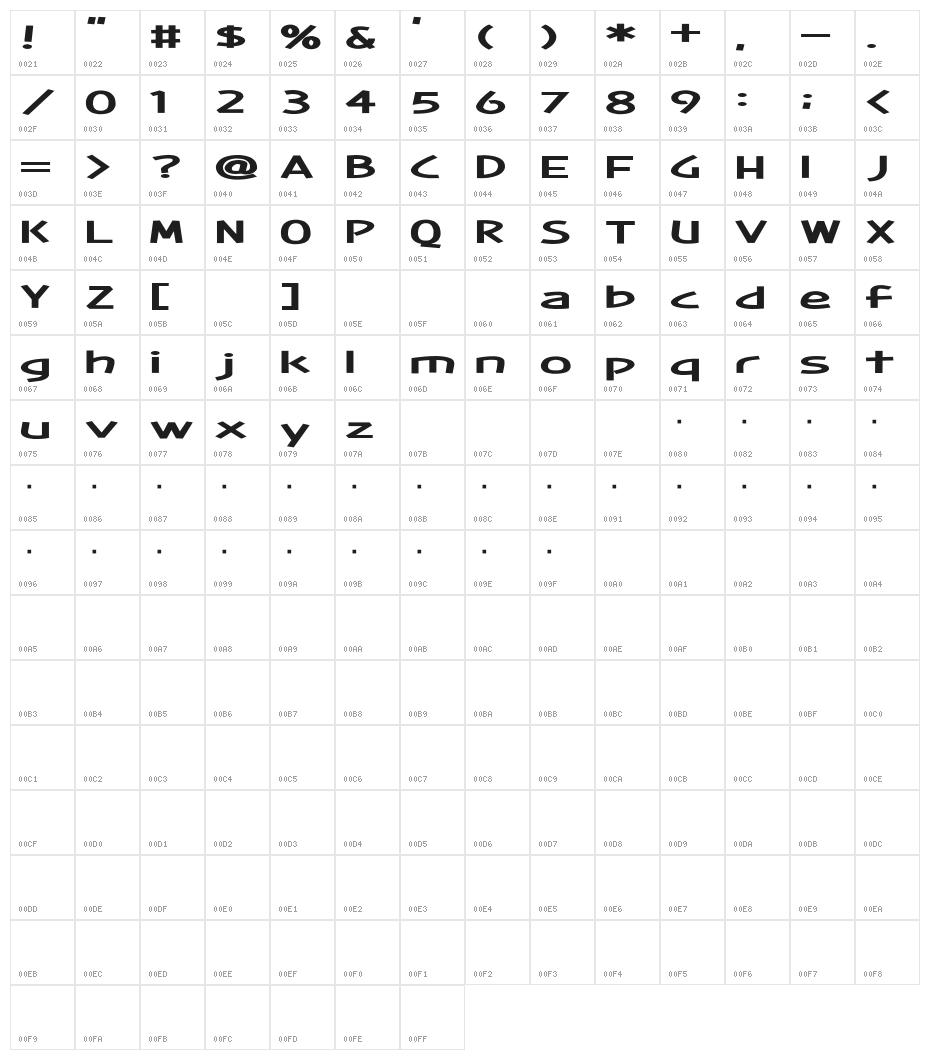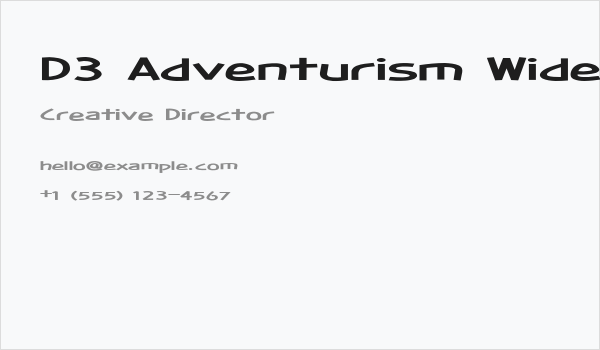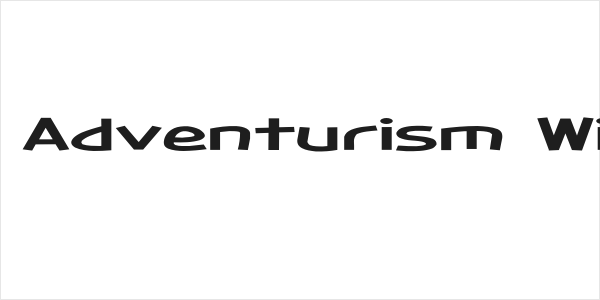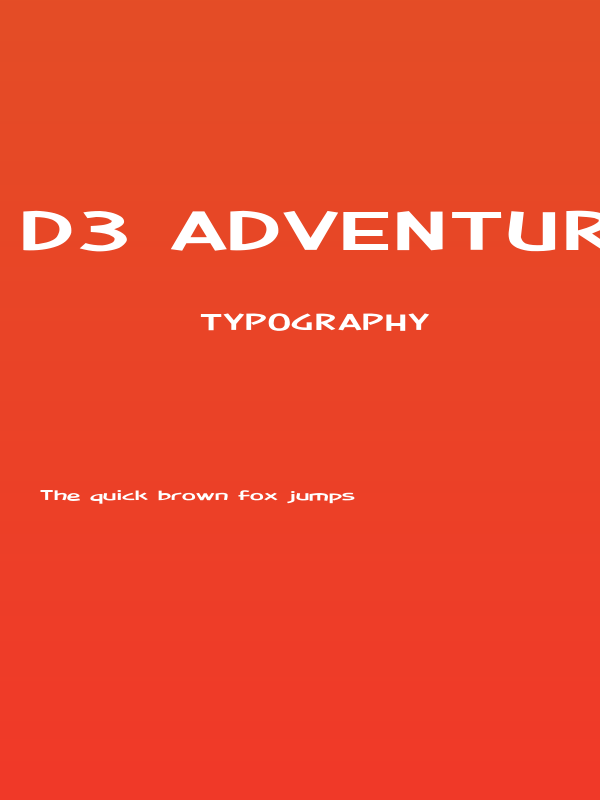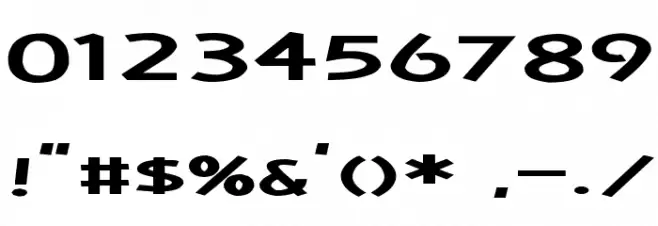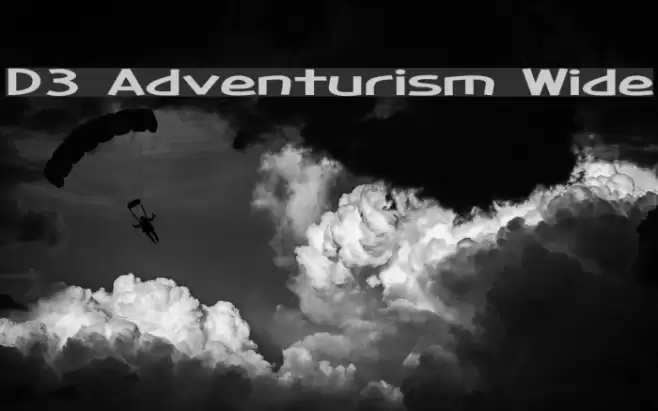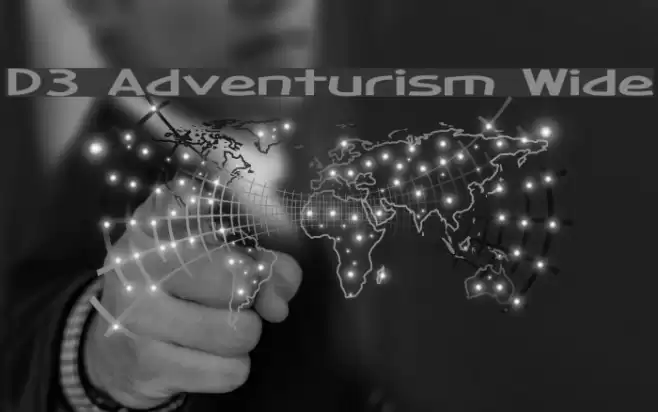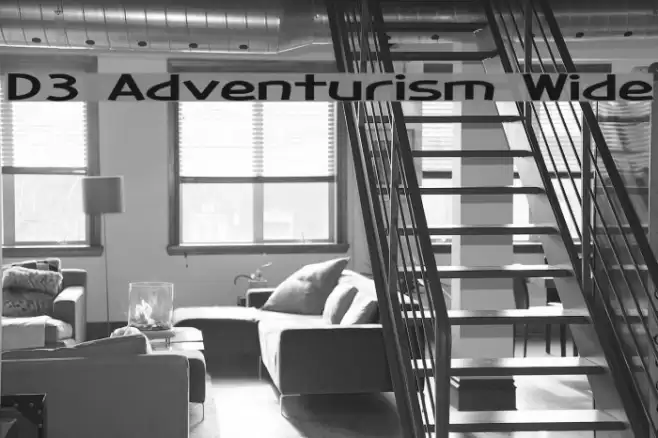
D3 Adventurism Wide Font
D3 Adventurism Wide Description
This font features a bold and adventurous style with a wide stance, giving it a strong and dynamic appearance. The characters are slightly angular with unique cuts and curves, creating a sense of movement and energy. The uppercase letters are particularly striking, with a modern and edgy design that stands out. The lowercase letters maintain the same boldness, ensuring consistency throughout. Numbers and special characters are designed with the same attention to detail, making them easily readable while retaining the font's distinctive style.
| Proposed Projects | Ideal for branding, posters, and headlines that require a strong and adventurous look. |